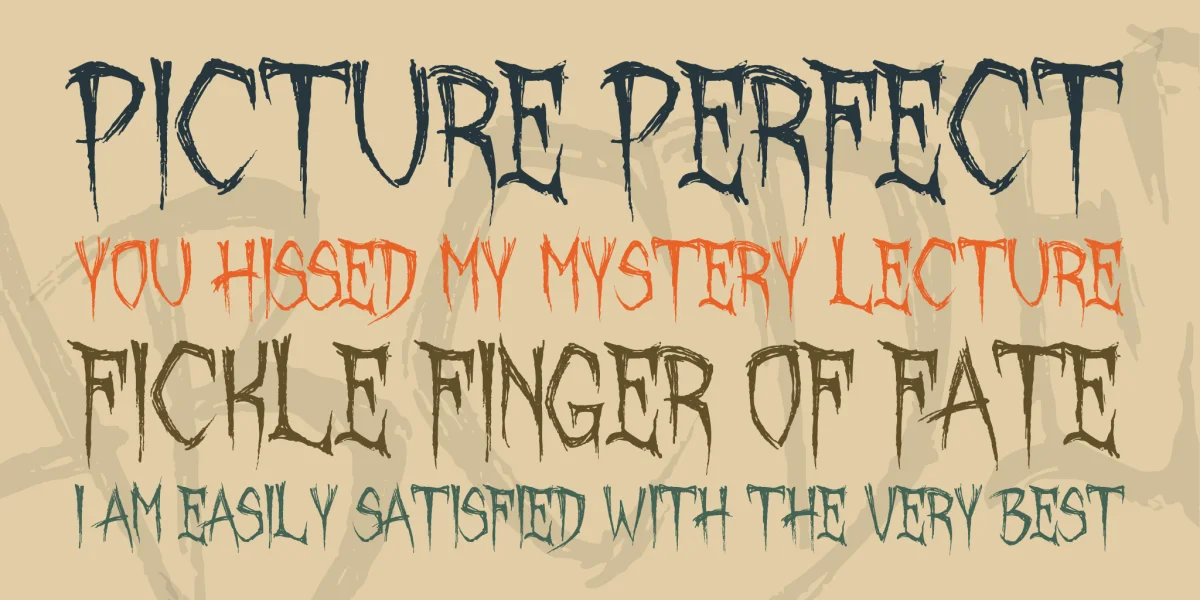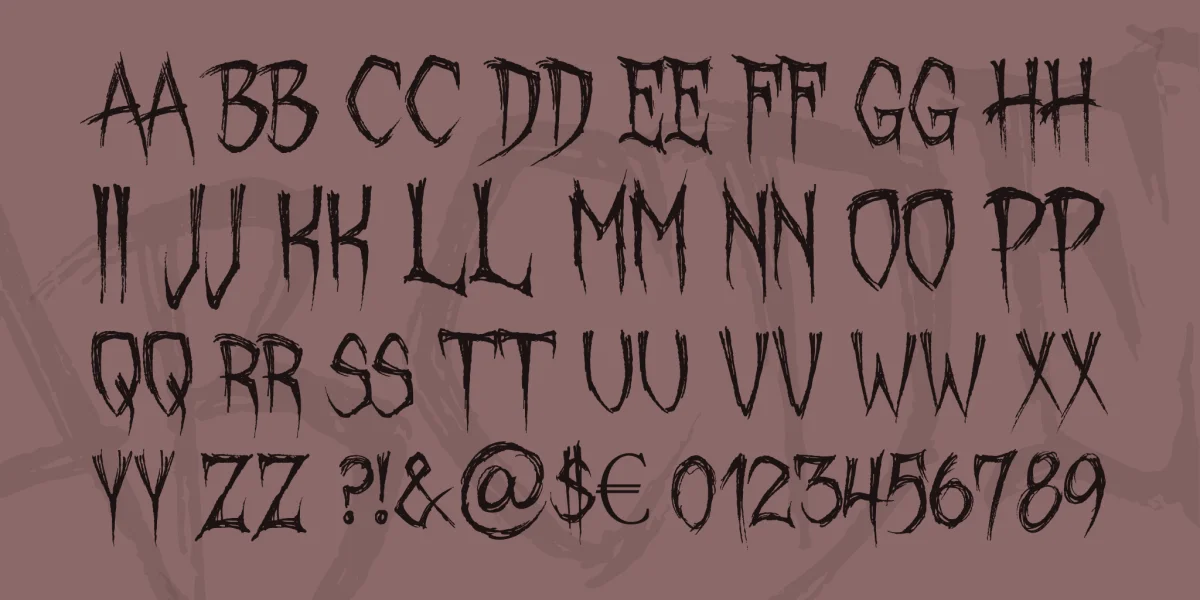
Created 2010, hand-lettered while watching The Crow on Devil's Night 2010. Turned into a PC font on Halloween, 2010. This is a free font, and I mean FREE. Use it however you want, for whatever you want. If you make something cool with it, I'd love to see it - email me at  and tell me about it. If you offer it for download on your own font site, PLEASE include this Read Me. That's not too much to ask, is it? This font is intended for specialty and graphic uses. It will look just awful if used in a paragraph format. For more free fonts and other downloadable goodies, visit www.sinisterfonts.com